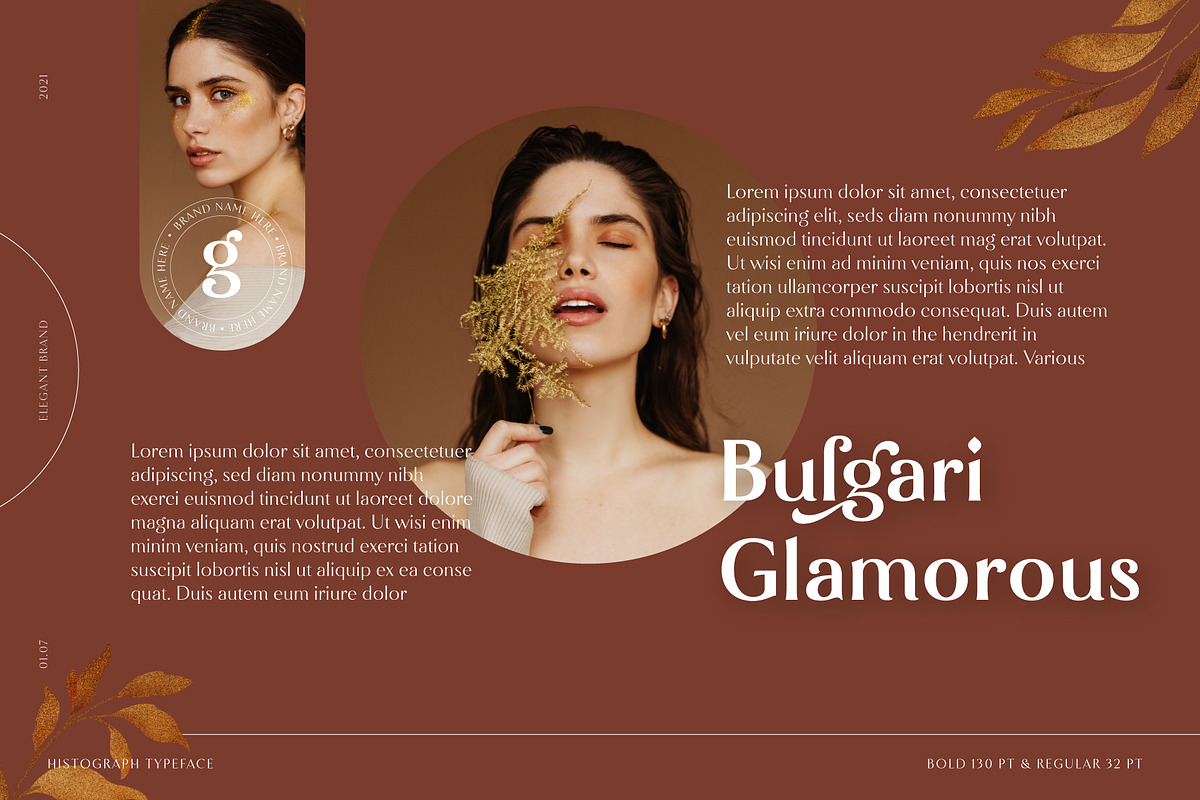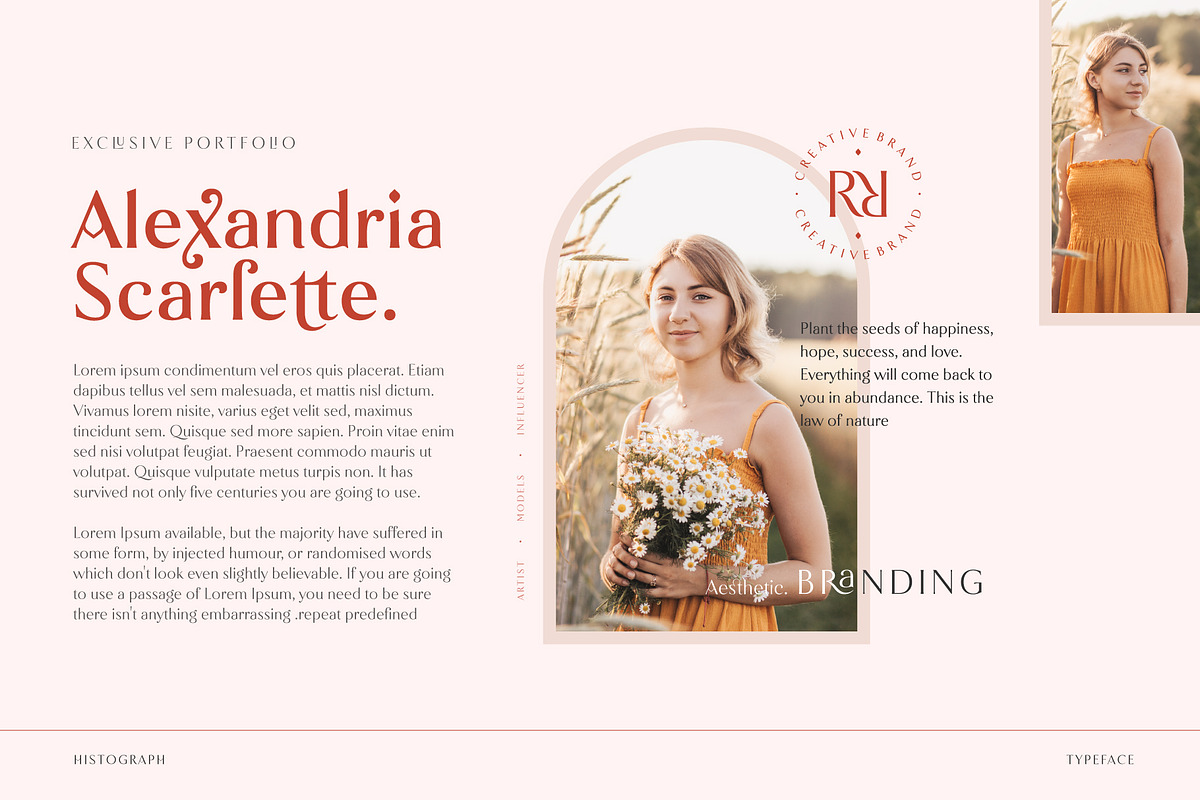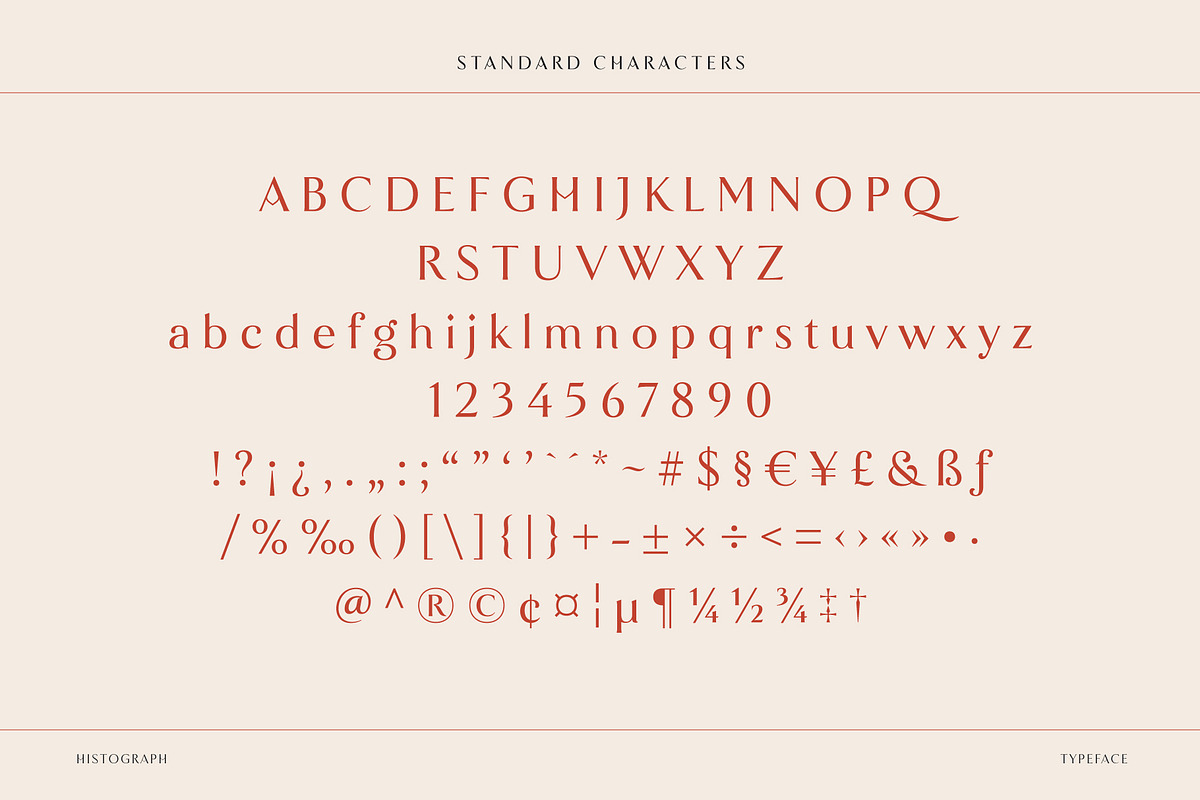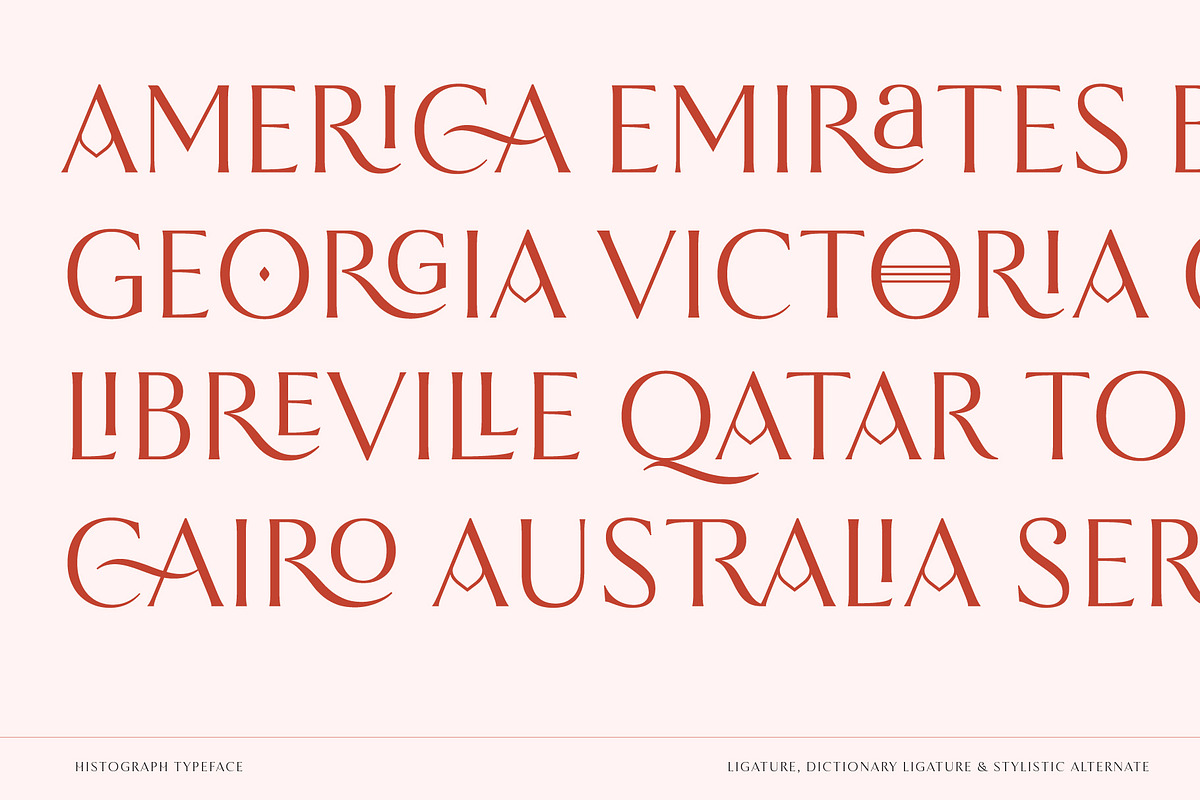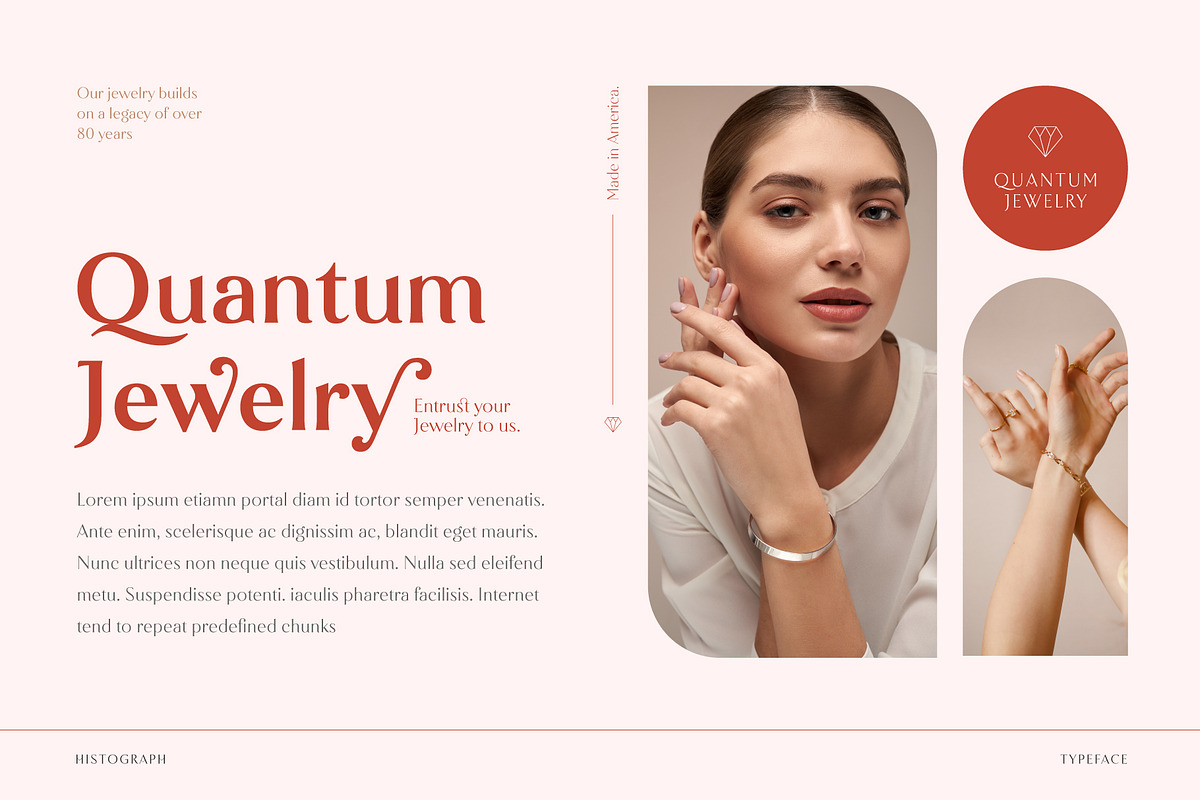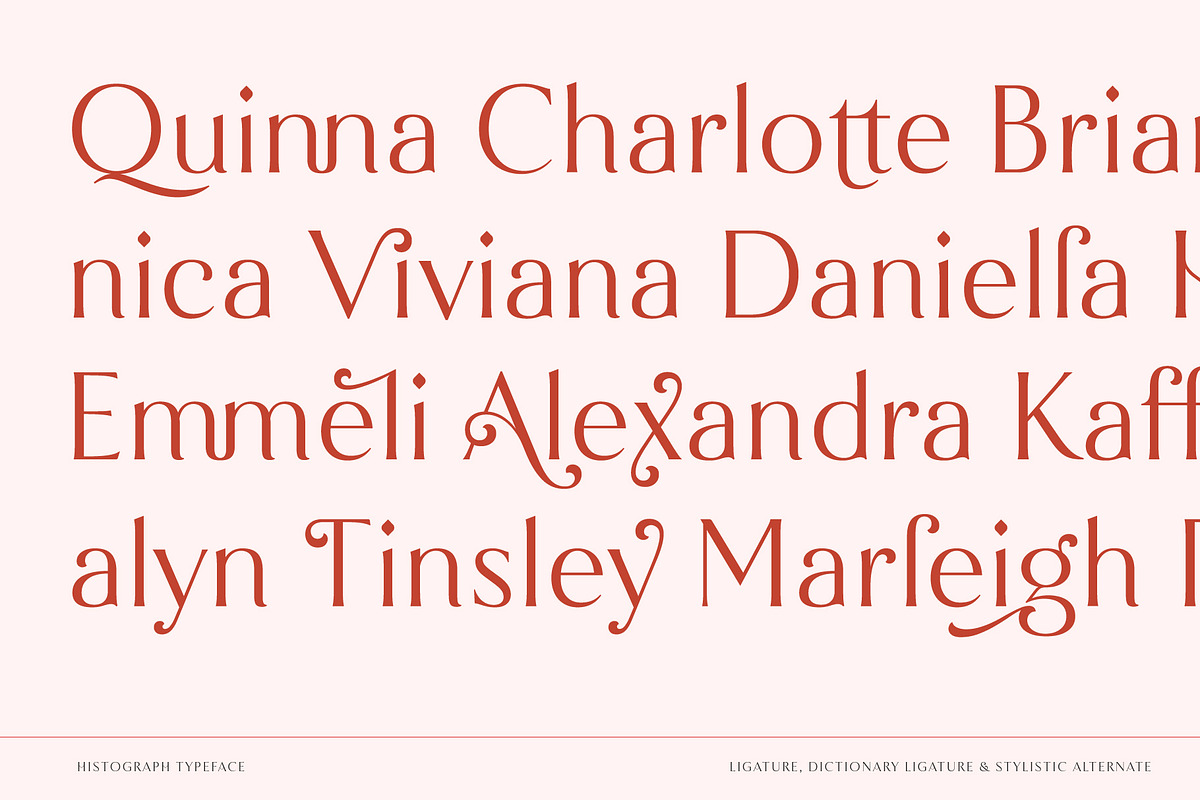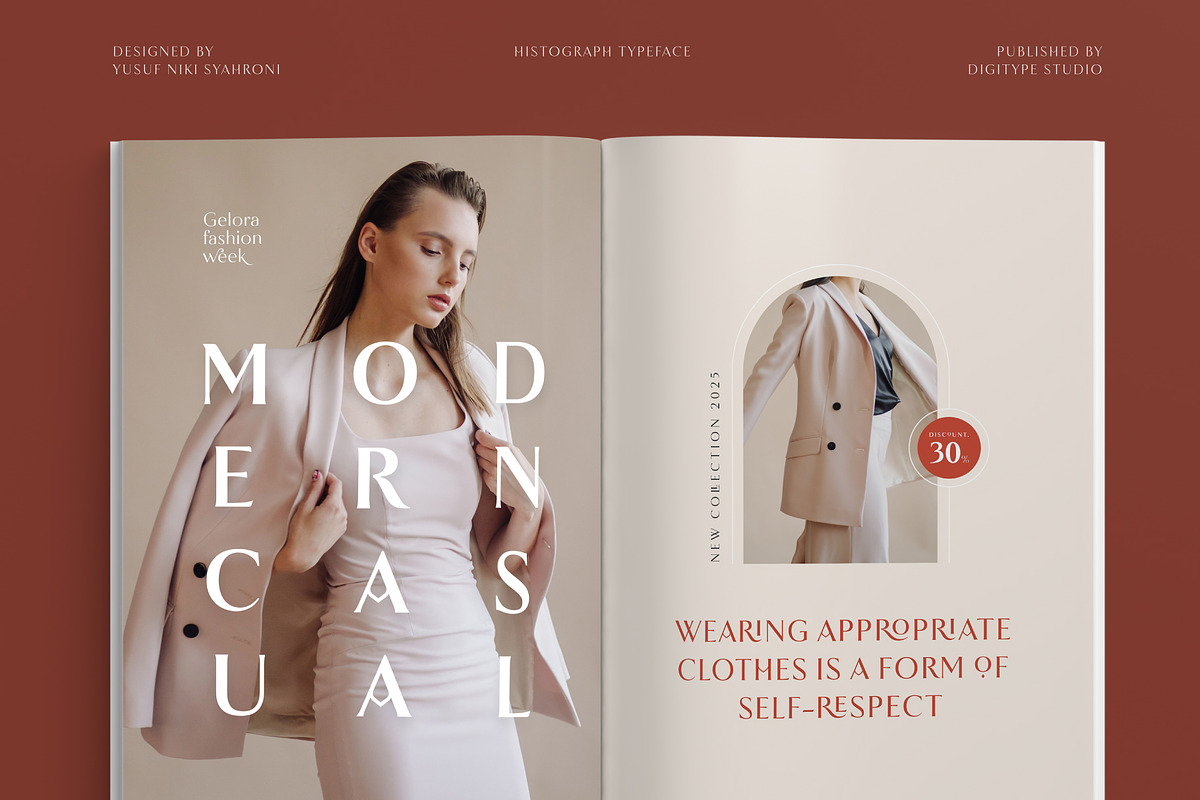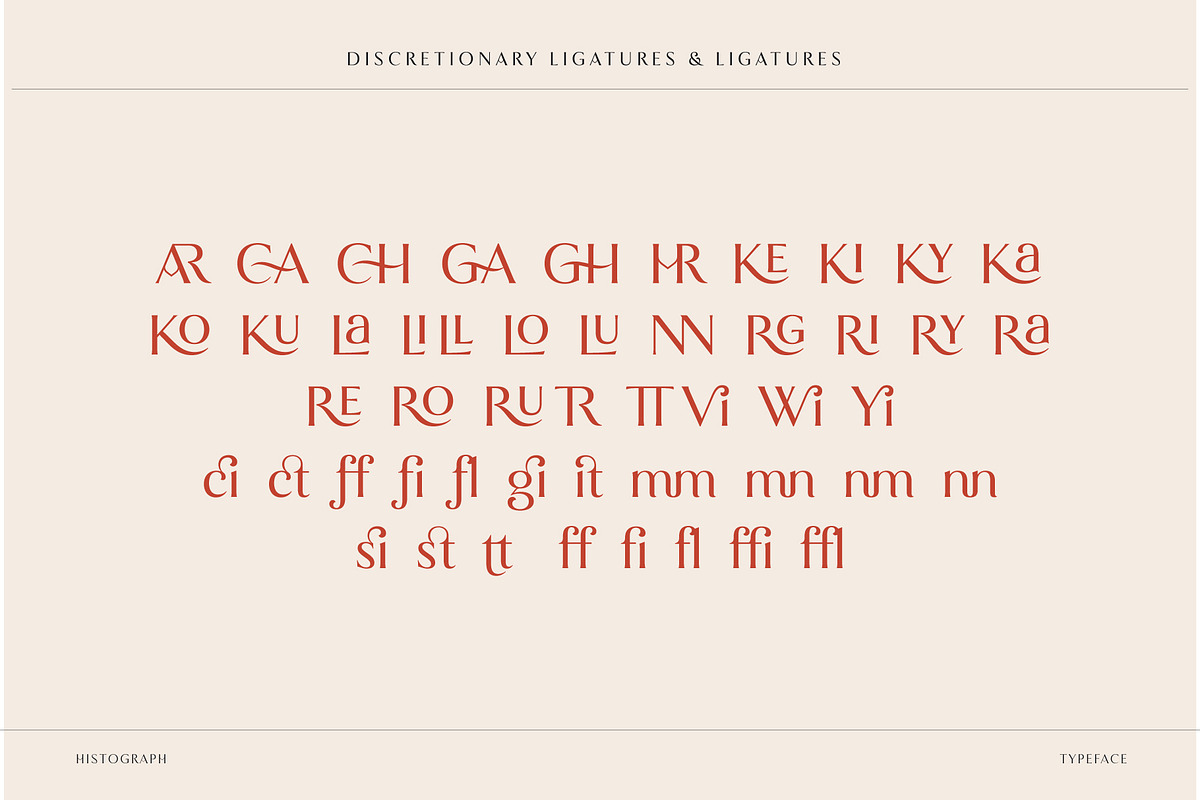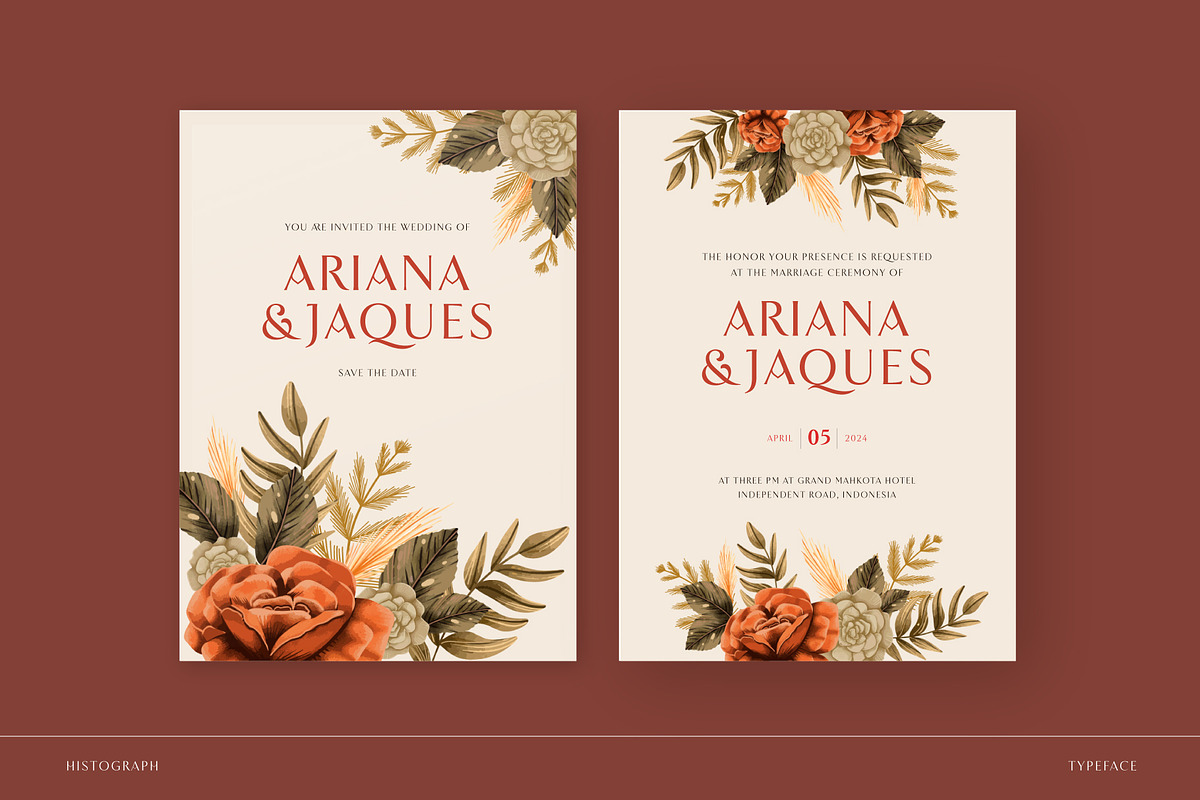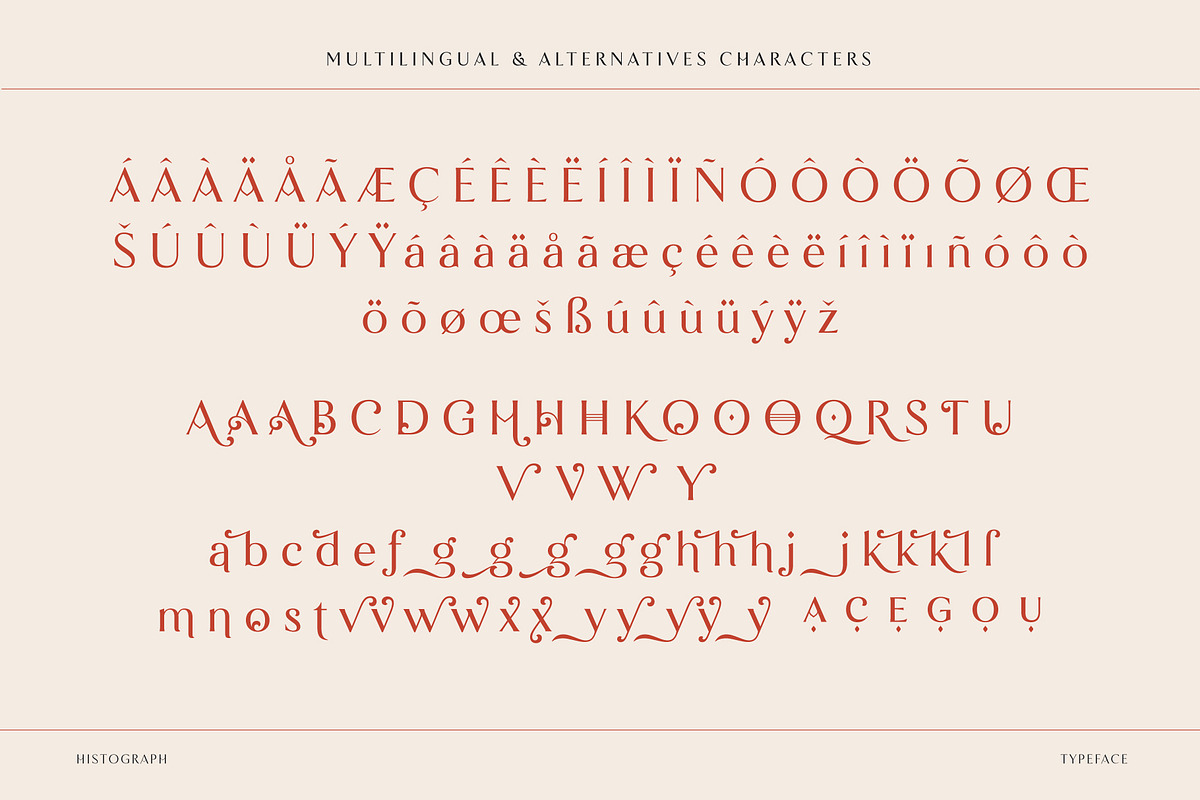
Histograph
Histograph comes with an elegant and unique style that is perfect for branding, logos, paragraph titles, wedding invitations, and much more. It comes in 5 weights & 1 variable font.
Histograph is equipped with Ligatures, Alternates, Multilanguage, and PUA Encoded.